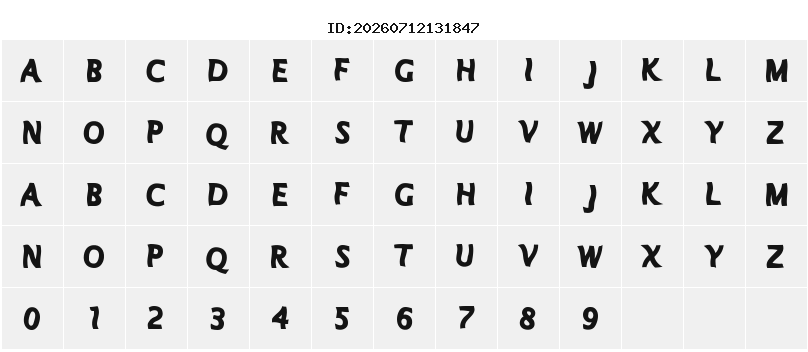
• Font Name: MANOLETE
• Full Font Name: MANOLETE
• Version: Version 1.00 March 3, 2015, initial release
About MANOLETE.ttf
MANOLETE.ttf is a modern, elegant sans-serif font designed for ultimate readability and visual harmony. Perfect for branding, headlines, web design, and print materials.